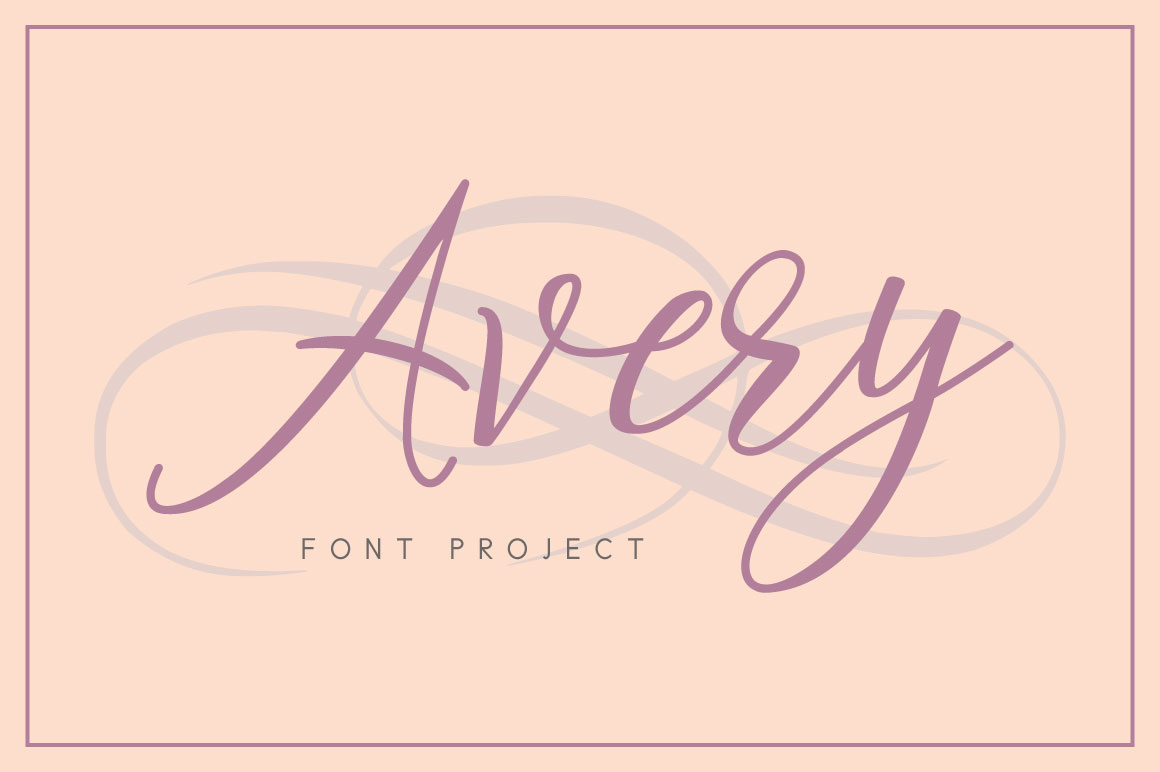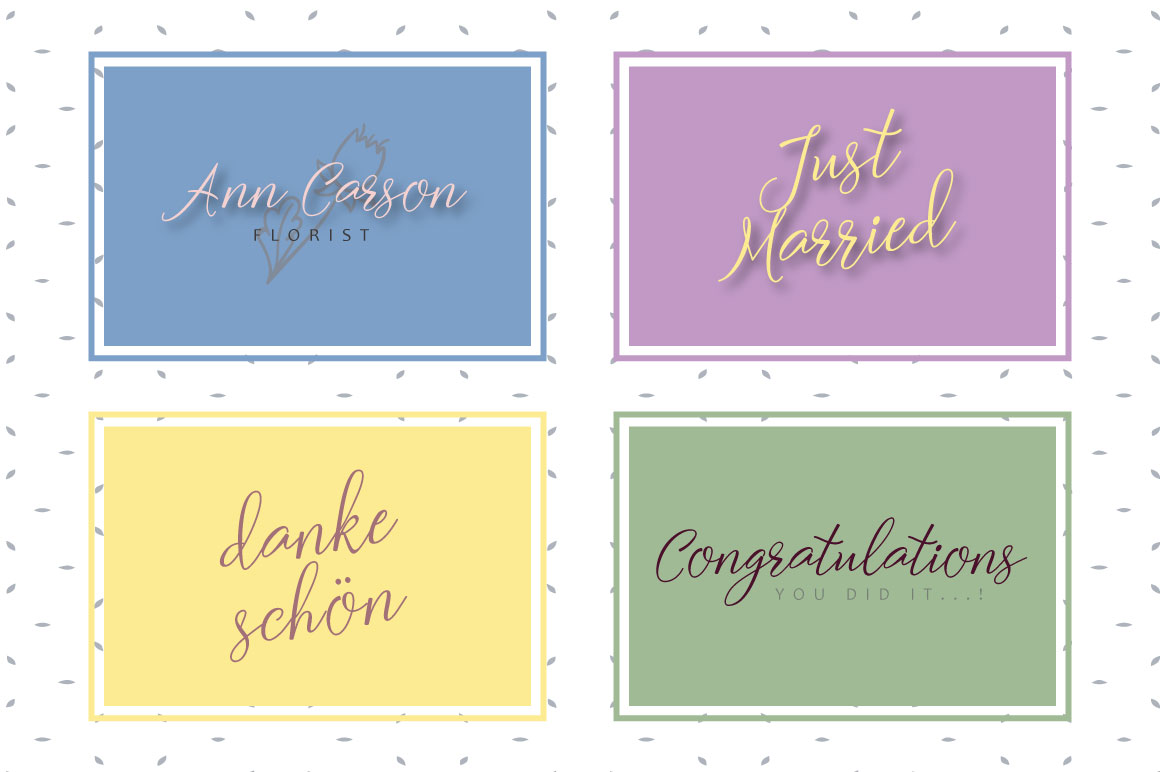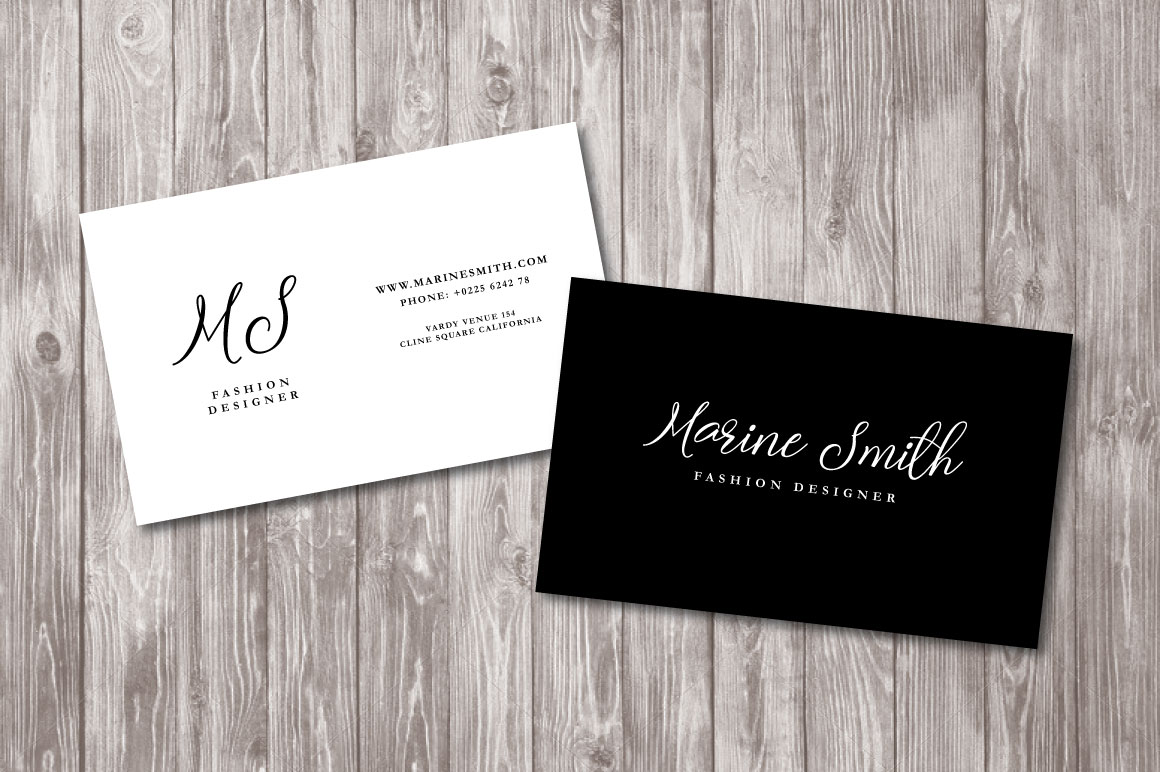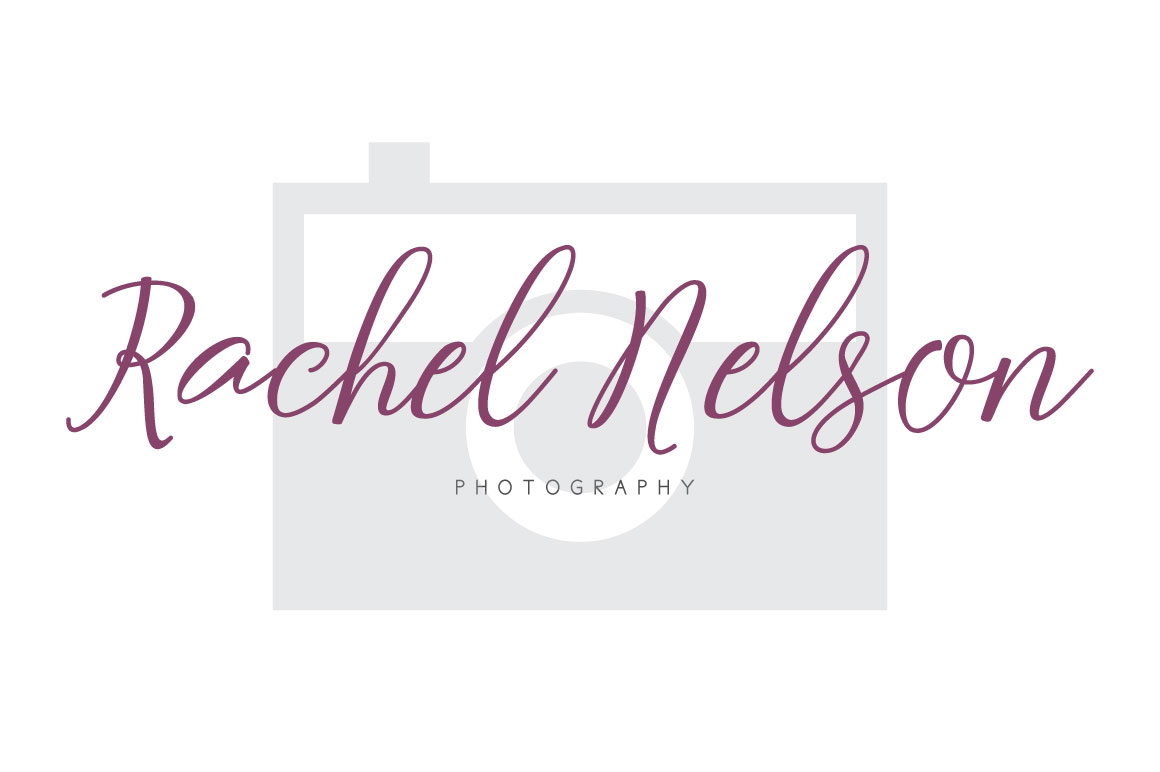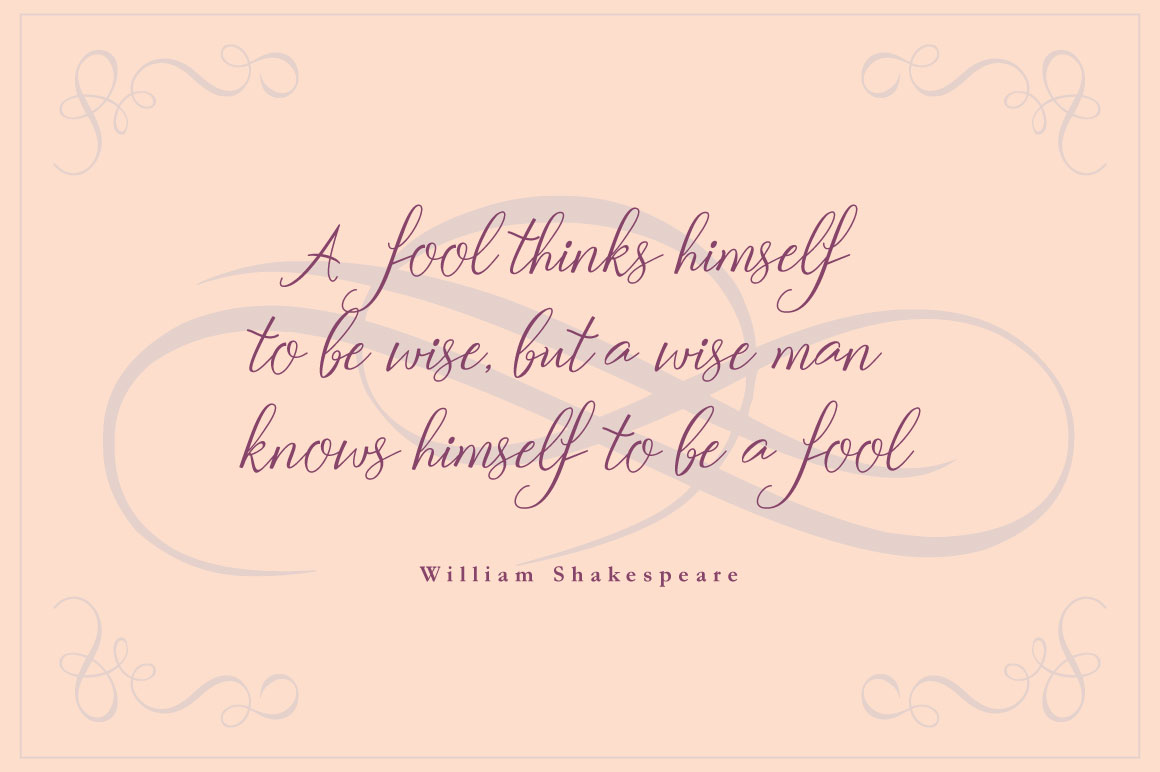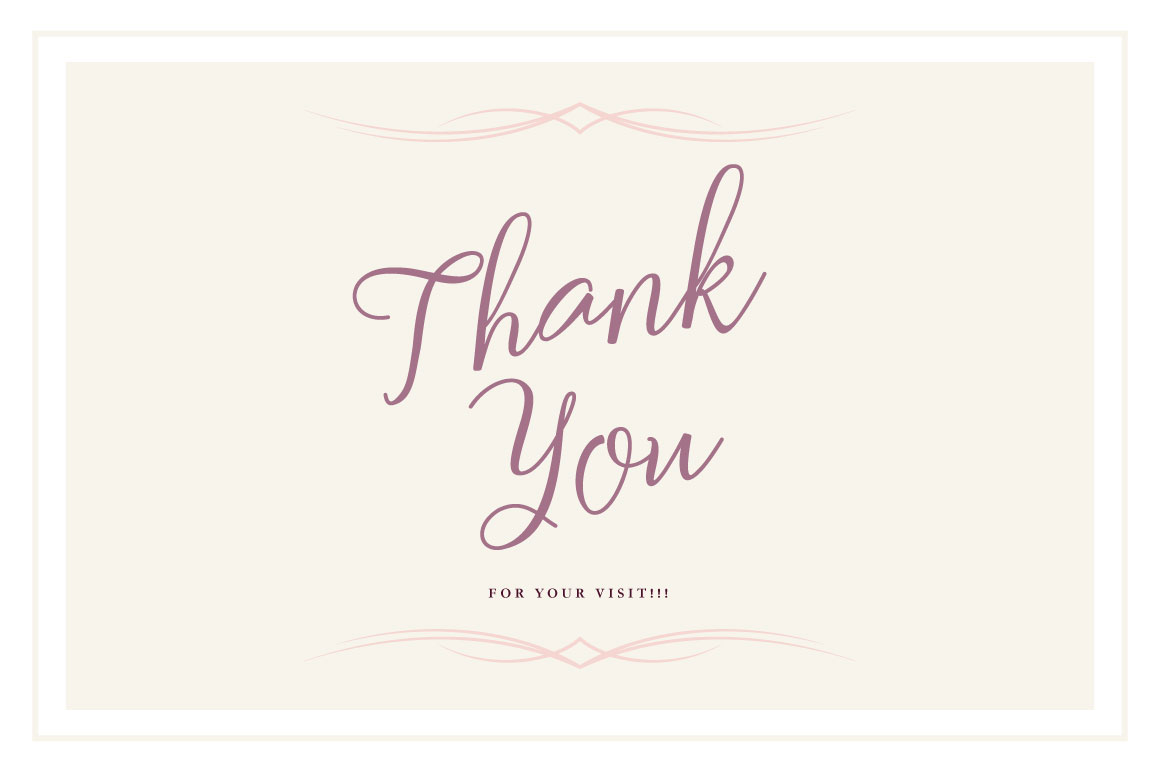
Avery Font
About Avery Font
Avery is a carefully hand crafted font with the sole purpose of adding a stunning personal touch to your designs. This contemporary script will turn your text into a little piece of art within seconds.